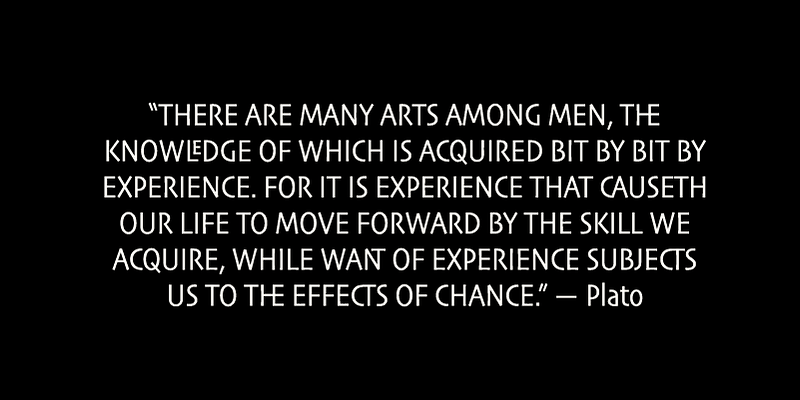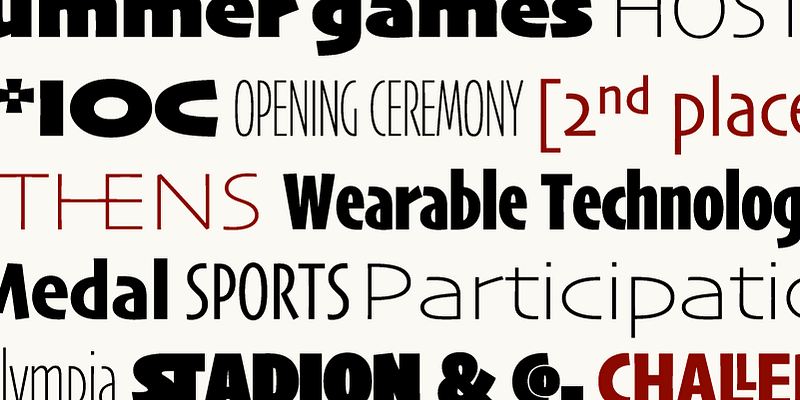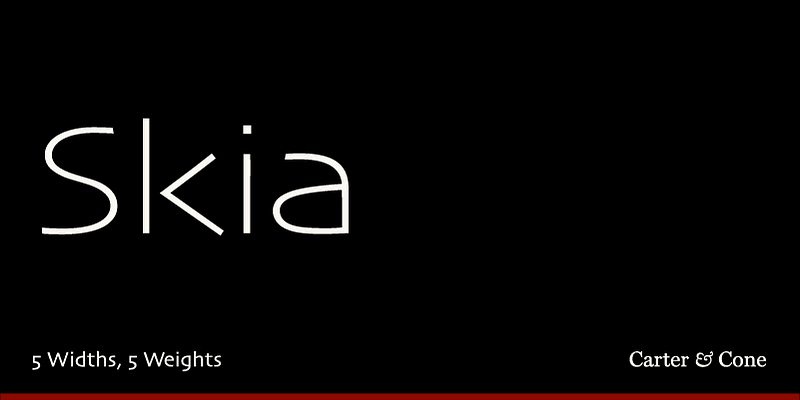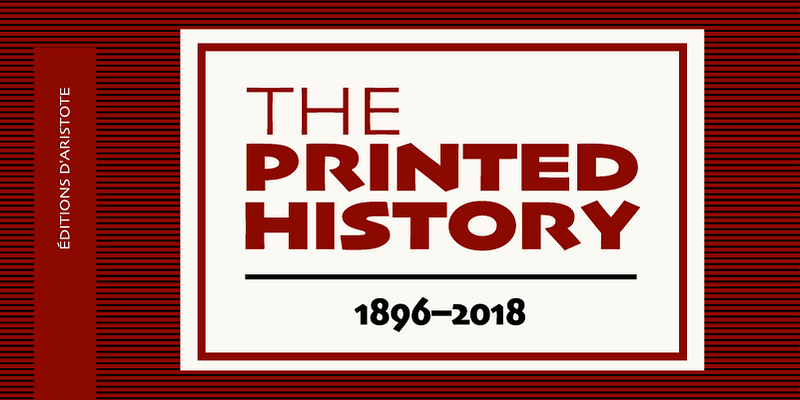
Skia CC is a humanist sans serif initially designed by Matthew Carter for Apple Computer in 1994. It was the first of the QuickDraw GX fonts and the first single font to offer variations in design. The letterforms take inspiration from 1st-century Greek stone carvings. The family has a flexible range of use because of its open counters, large x-height, and distinctly angled terminals. The Type Founders updated and re-engineered the original data and it is now available in 5 widths and 5 weights or as a single variable font.